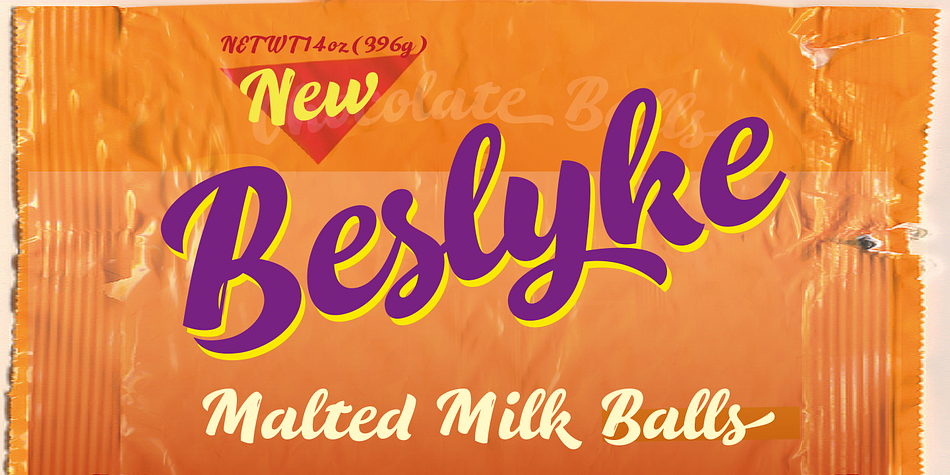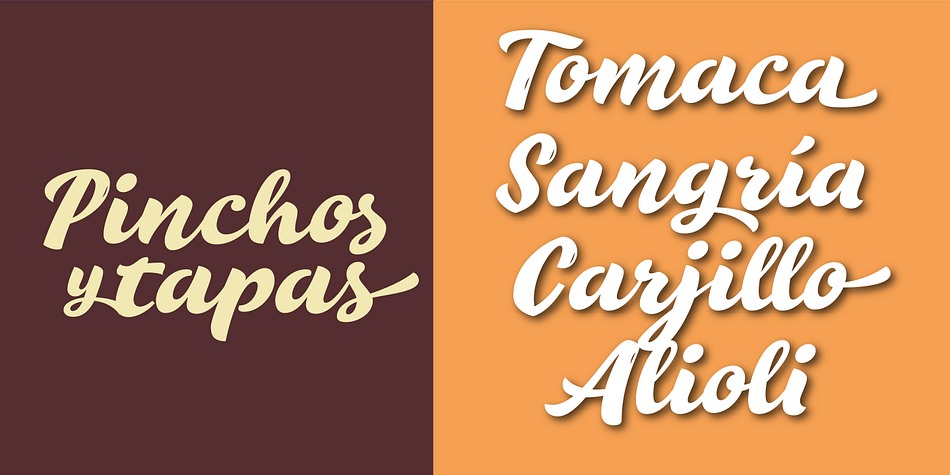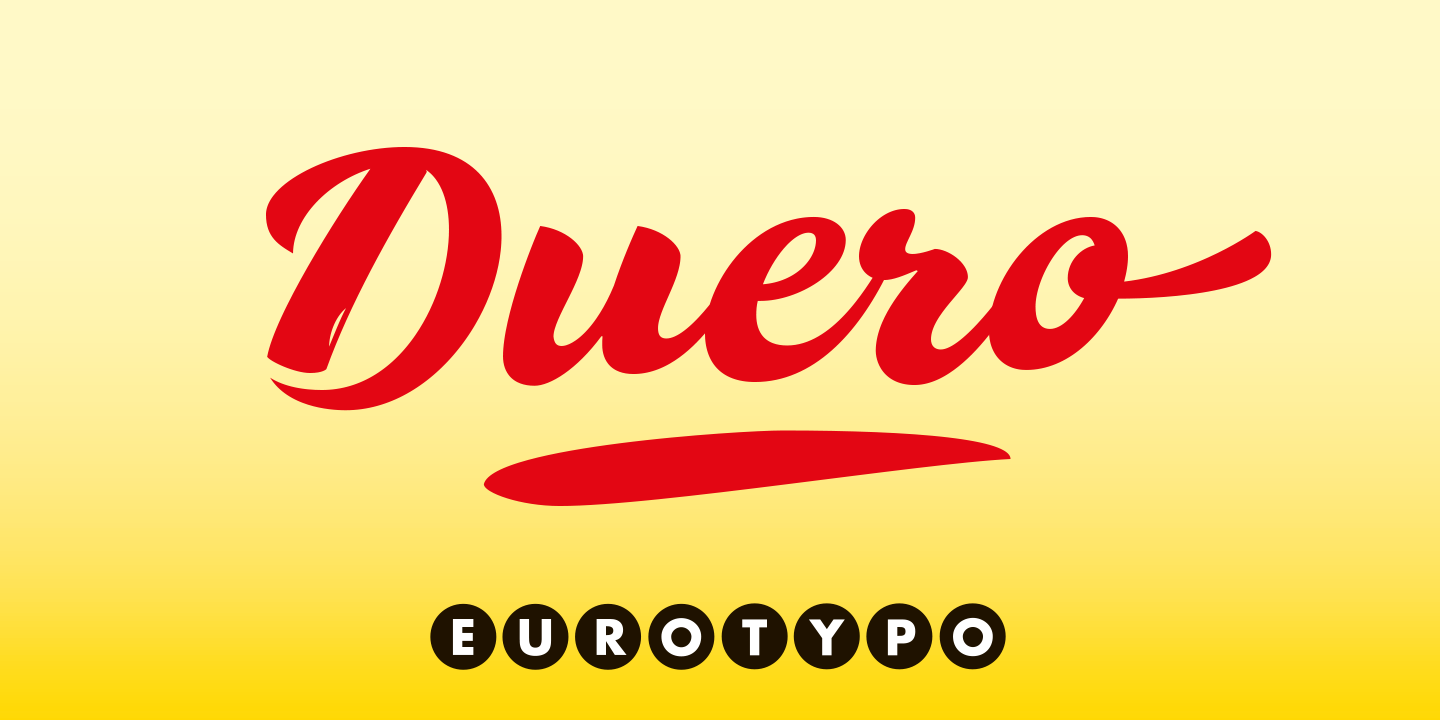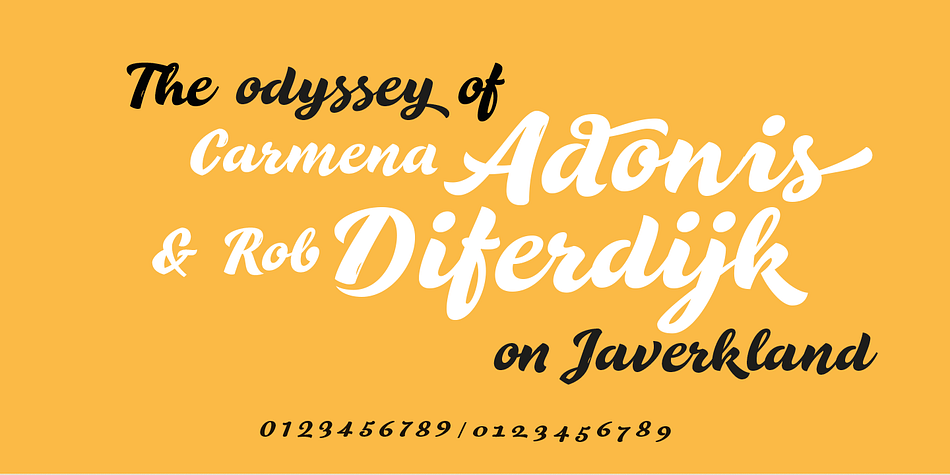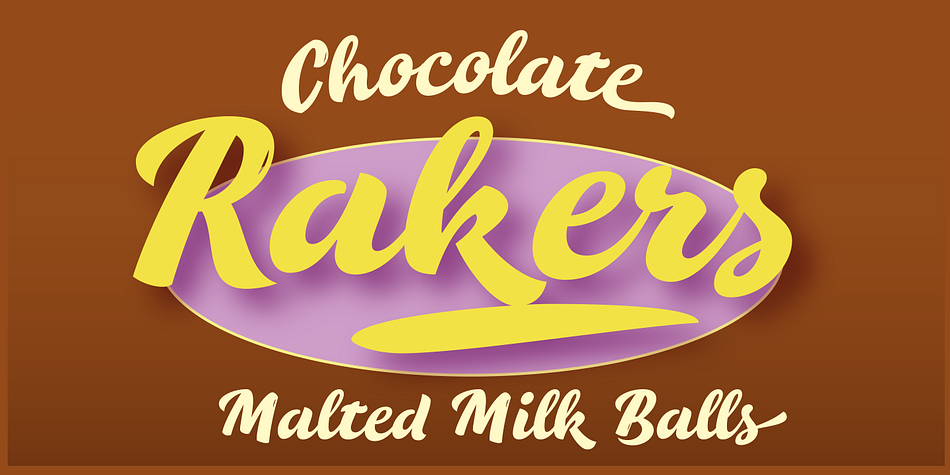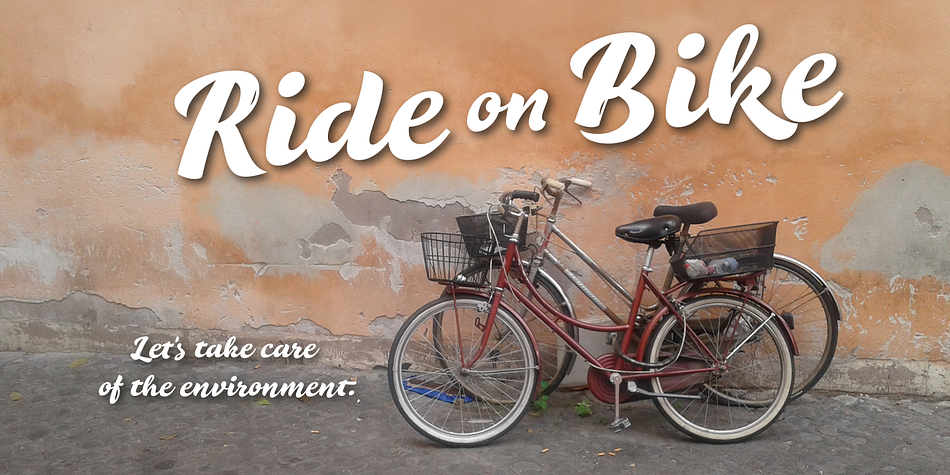
Designed by Olcar Alcaide, Duero is a brush script font published by Eurotypo.
The Duero is one of the major rivers of the Iberian Peninsula, flowing from its source across northern-central Spain and Portugal to its outlet at Porto. The “Duero viñatero”, is an area of the Duero Valley where its famous wines are produced.
“Duero”, a new script font carefully designed, its slight bounce and intentional irregularity gives your words a wonderful flow. The thick and thin strokes in this typeface combine balance and harmony.
“Duero” has OpenType features such as Stylistics and Contextual alternates, Swashes, Ligatures, that allow you to mix and match pairs of letters and a Central European language support to fit your design. This will help your creativity and make it easier to make the impressive and elegant typographic work.
“Duero” looks good on food packaging, logo design, business-cards, fashion, magazines, menus, book covers and much more!